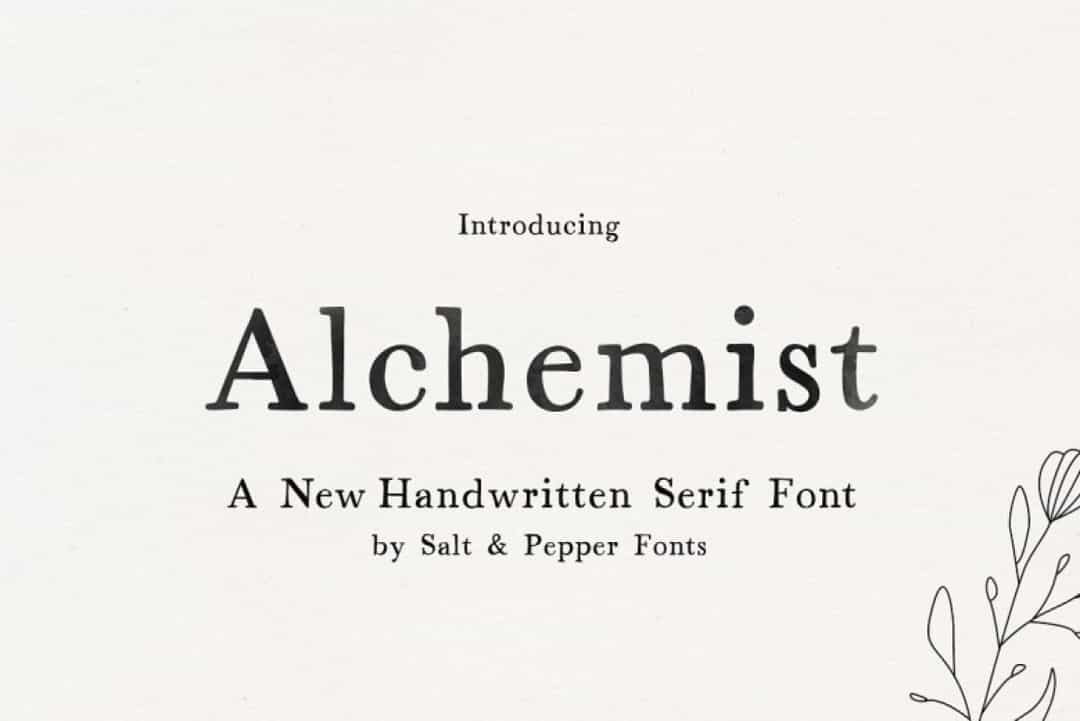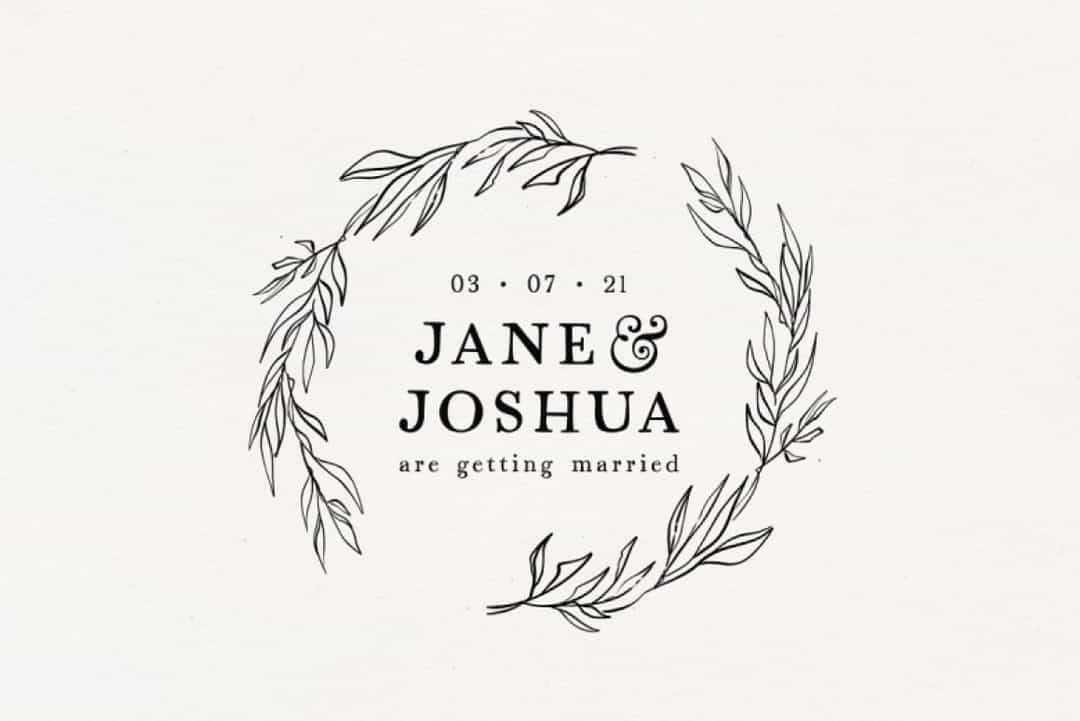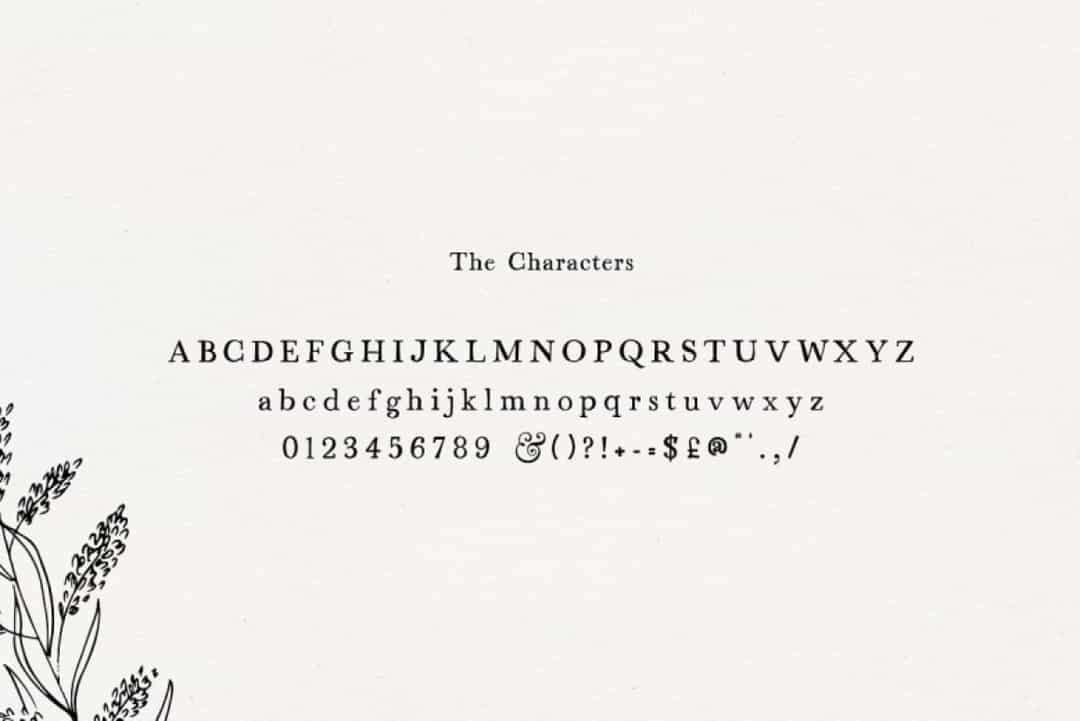
The Alchemist font is a brand-new handwritten serif typeface which can be used for wedding designs as well as save-the-date invitation cards, quotes and save-the-date invitation cards clothing magazines logo designs and so much more!